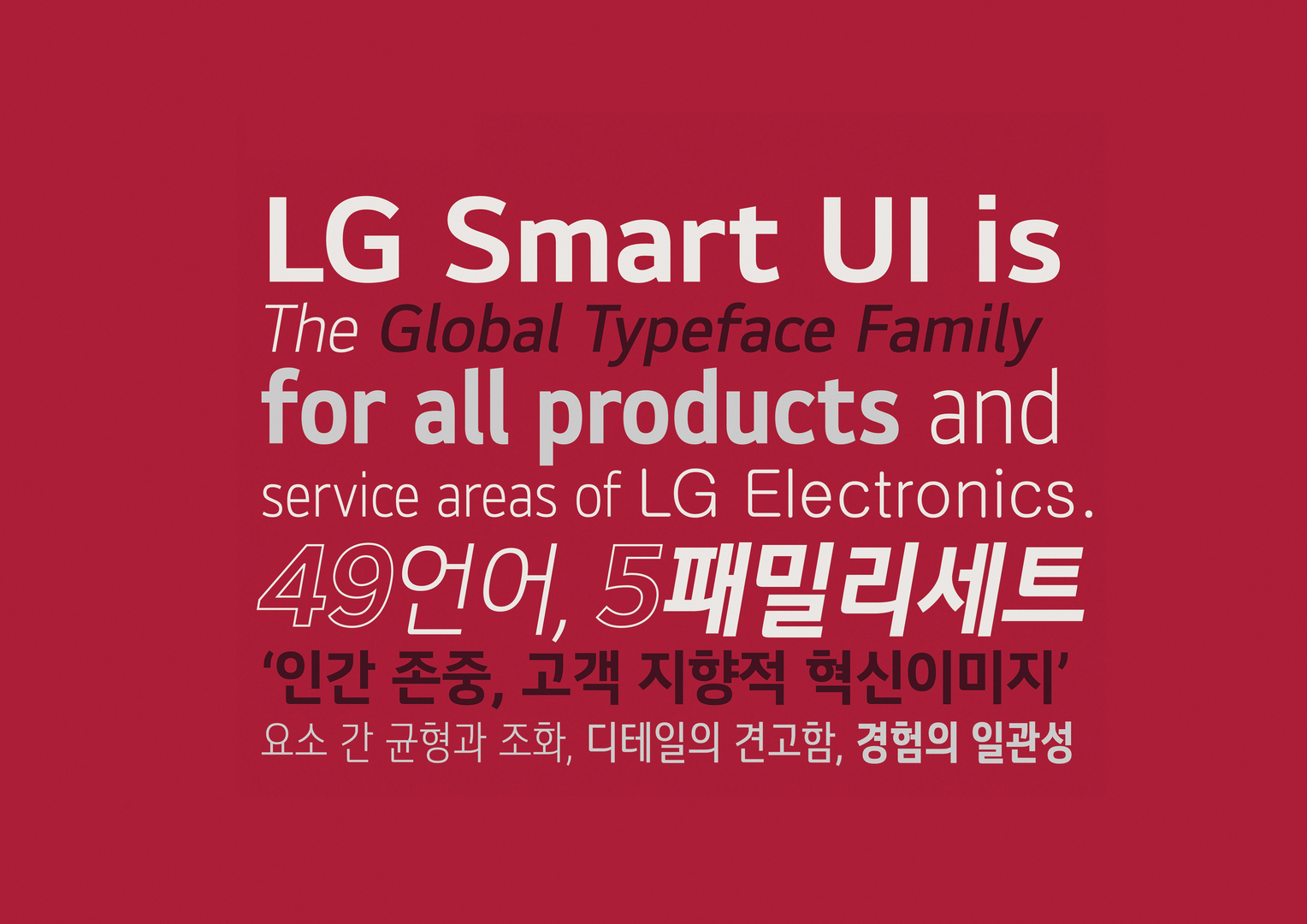
Corporate Typeface
LG Smart UI Typeface Family
The LG Smart UI typeface is applied to user interfaces and the physical surfaces of electronic products, providing a consistent visual identity by integrating the fonts used in all customer product and service contacts in the course of the company’s marketing activities. The corporate typeface expresses LG Electronics’ philosophy of “Respect for human dignity” and “Customer-oriented innovation” in its smooth curves and open forms. This is a flexible font family optimised for the characteristics of both display and print, as well as being implemented in products. It supports 49 languages and ensures a unified brand experience.